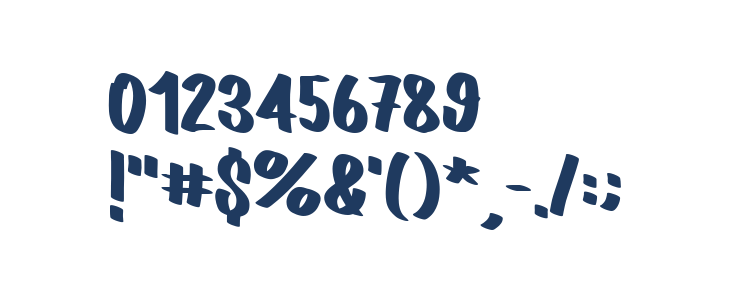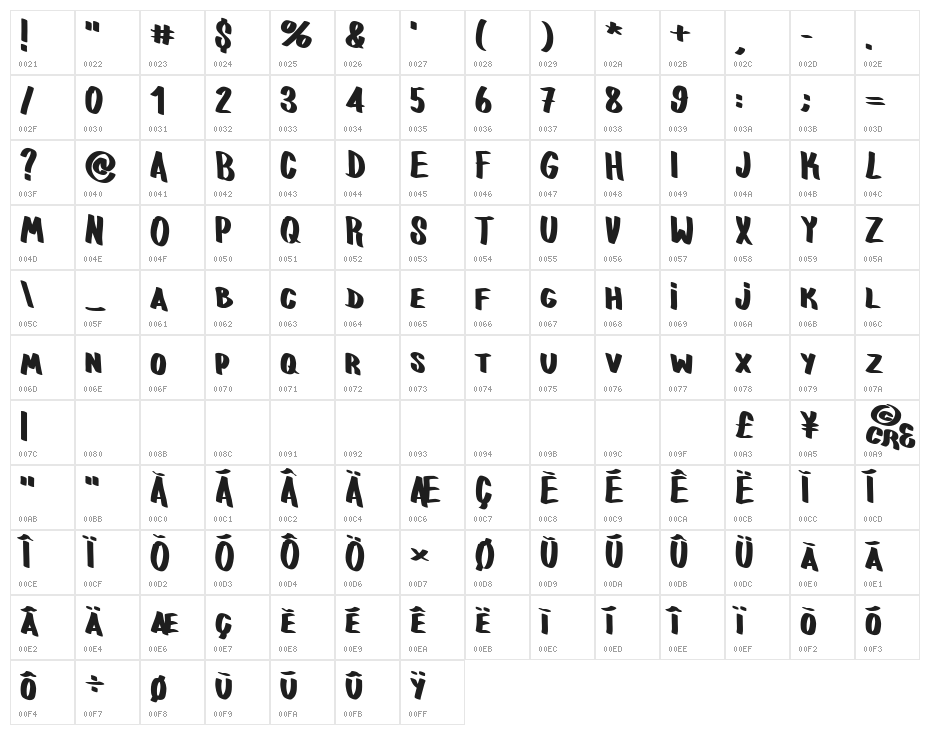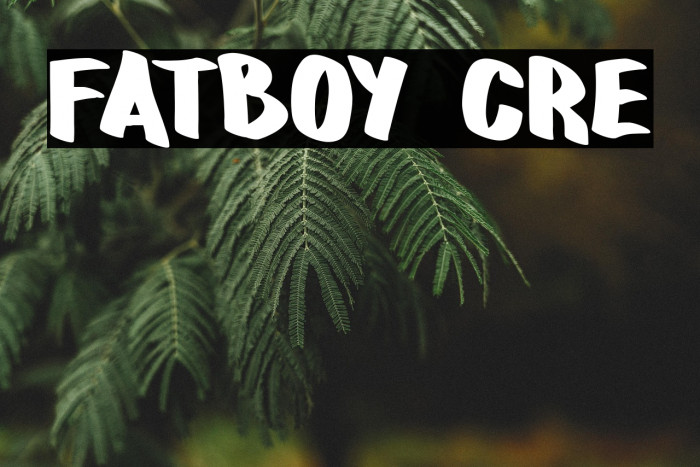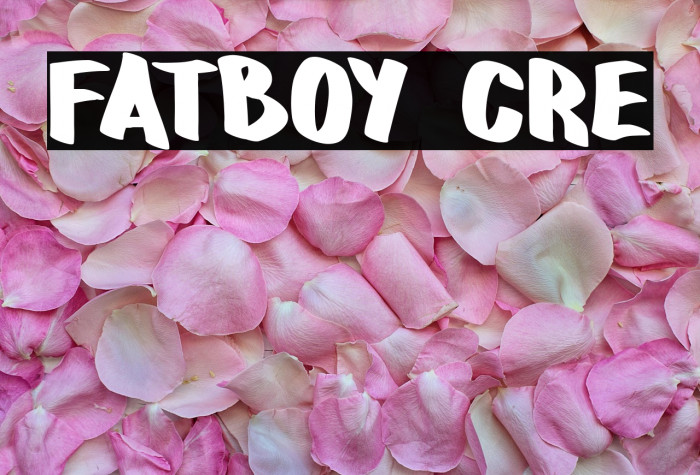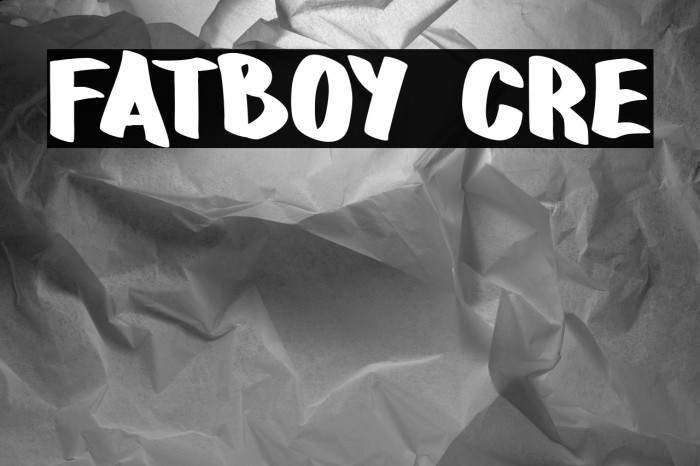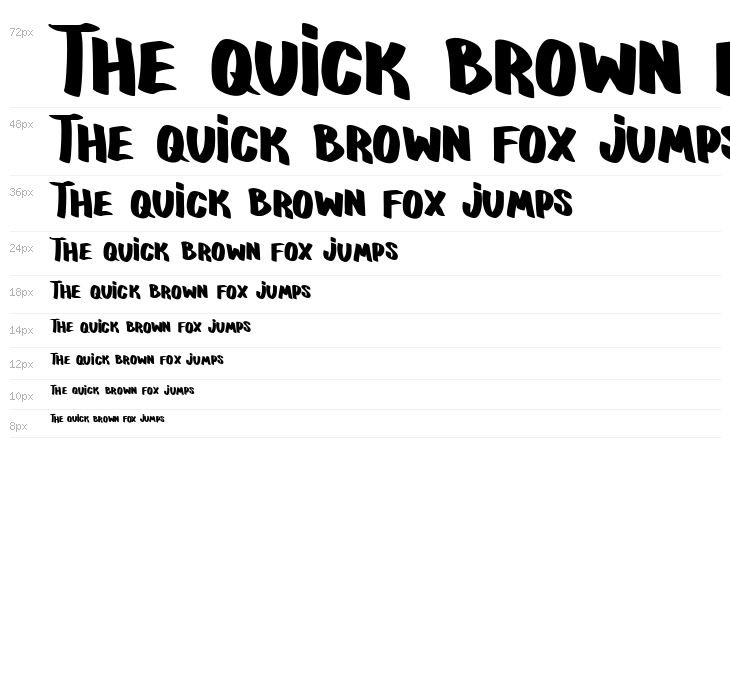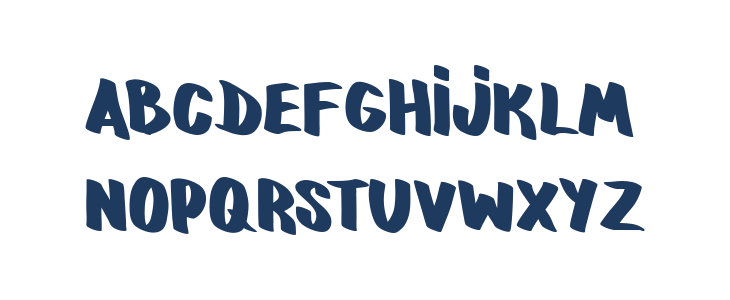
fatboy cre Font
fatboy cre Description
This font features a bold and playful style with a hand-drawn appearance. The letters are thick and rounded, giving them a friendly and approachable look. The strokes are uneven, adding a sense of movement and energy to the text. The uppercase and lowercase letters maintain a consistent style, with the lowercase being slightly smaller in size. Numbers and special characters are included, matching the overall aesthetic. This font is ideal for projects that require a fun and informal touch.
Overall StylePlayful
Proposed ProjectsIdeal for children's books, playful branding, posters, and social media graphics.